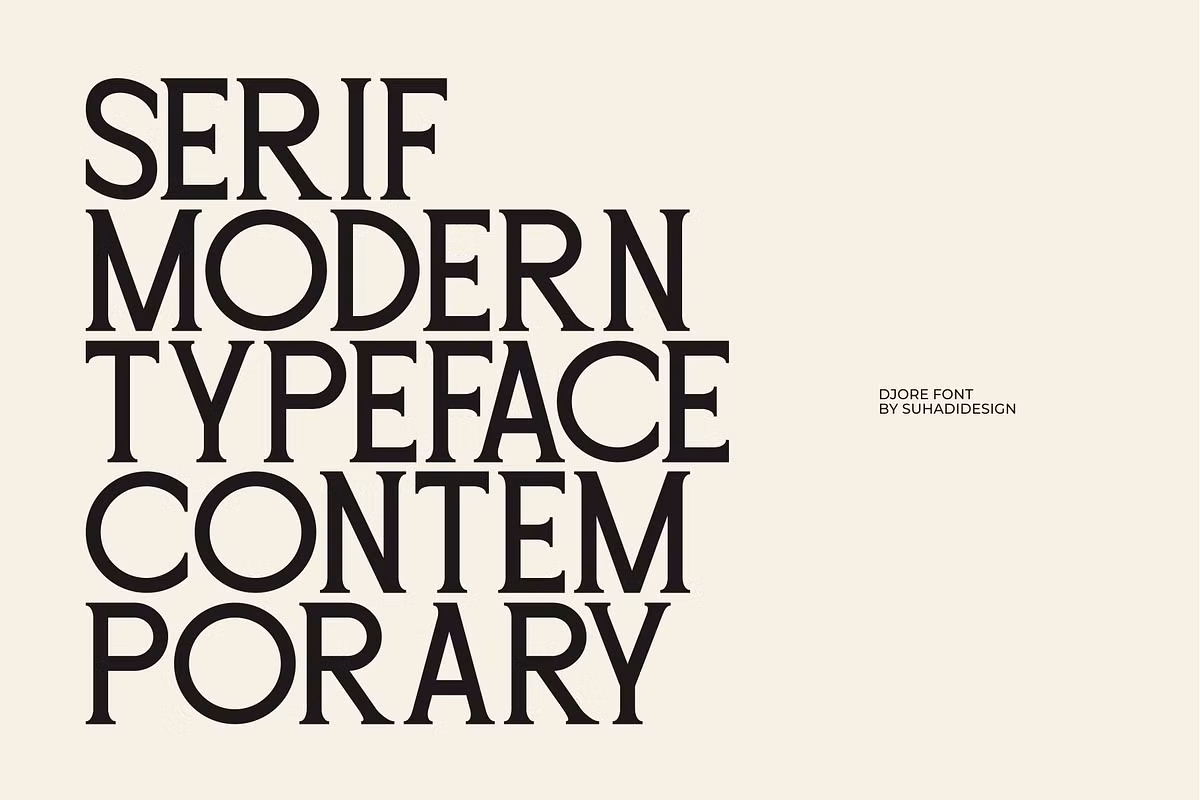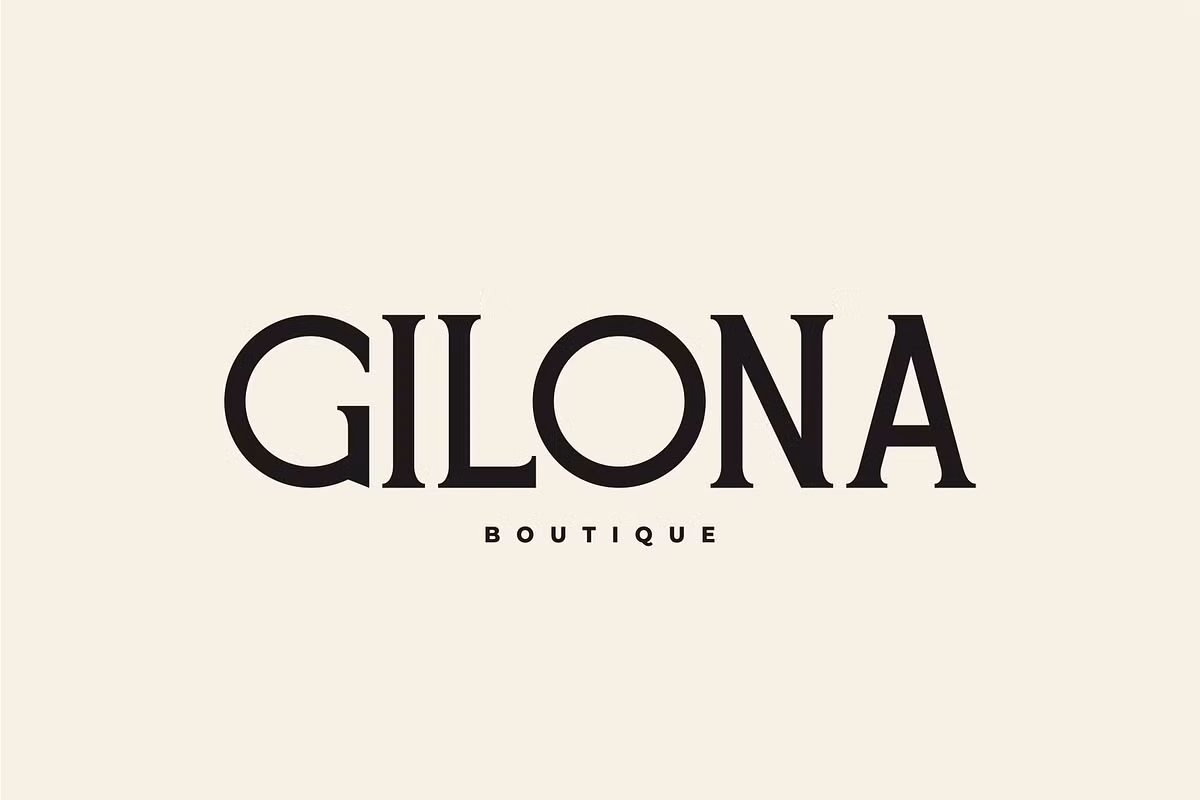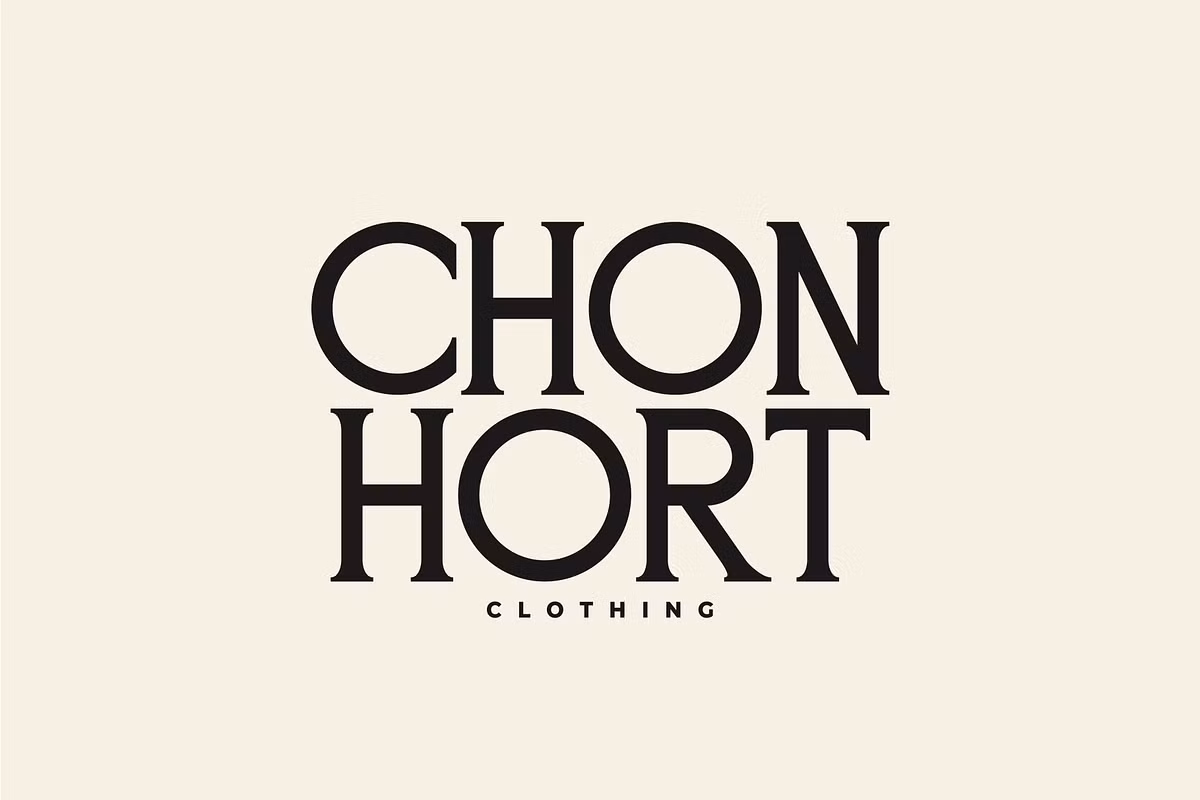
Introduction to Djore
Djore is a new typeface that’s really popular among designers right now. It’s a minimalist serif font with a modern and elegant look that stands out from the crowd. Both men and women love using it to add a touch of sophistication to their projects. The design of Djore is all about being classy and stylish, making it a great choice for lots of different design applications. With its contemporary feel, it’s perfect for anyone looking to give their work a bit of extra flair. Whether you’re working on a big project or just want to add some elegance to your everyday designs, Djore is definitely worth checking out. Its simple yet refined aesthetic makes it a great addition to any design toolkit.
Design Style of Djore
Djore embodies the principles of modern minimalism, featuring clean lines and balanced proportions that make it a versatile choice for any project. Its design gracefully combines traditional serif elements with contemporary flair, resulting in a font that is both timeless and trendy.
Elegant Serif Features
Djore has a classic feel to it, with serif details that give off a sense of sophistication. The way each character is designed is really thoughtful, making sure it’s easy to read while still looking luxurious and refined. This makes Djore perfect for things like high-end magazines, branding materials, and any design project that needs a touch of elegance. It’s all about creating a certain atmosphere, and Djore does that beautifully. Whether you’re working on a fancy brochure or a high-end website, Djore is a great choice because it adds a level of refinement that’s hard to find in other fonts.
Contemporary Aesthetic
Djore has a really modern look that’s great for branding projects. If you’re making a logo, business card, or anything else for your brand, Djore’s clean design will help you stand out. It’s simple and understated, so it won’t overwhelm other elements in your design. This means you can easily incorporate it into any layout and achieve a balanced look. Djore is all about creating a strong visual identity without being too flashy, making it perfect for modern brands that want to look sleek and professional.
Character Sets and Versatility
Djore is designed with a comprehensive character set that includes capital letters, lowercase letters, numbers, and punctuation. This extensive range allows you to use Djore across various applications without compromising on style or clarity.
Use Cases for Djore
Djore is suitable for a wide array of design projects, including:
- Magazines: Djore brings an elegant touch to editorial layouts, making it perfect for high-fashion magazines or lifestyle publications.
- Branding: Whether for a logo or business card, Djore’s sophisticated design can elevate a brand’s image and make it memorable.
- Social Media: Use Djore to create stunning graphics for social media posts that stand out and engage your audience.
- Publications: Djore is an excellent choice for books and articles, ensuring that the text is not only readable but also aesthetically pleasing.
When you want to get the most out of your designs, think about combining Djore with other fonts that make it look even more sophisticated, but also provide a nice contrast. Here are some ideas for font pairings that you might find useful.
- Sans-Serif Fonts: Pair Djore with a clean sans-serif font like Montserrat or Open Sans to create a modern look that balances elegance with readability.
- Script Fonts: To give your designs a more luxurious feel, try pairing Djore with a fancy script font like Great Vibes or Pacifico.
- Geometric Fonts: Geometric sans-serif fonts such as Futura or Avenir can provide a striking contrast to Djore’s organic curves.
Djore is flexible and can be used in lots of different ways, like for printing or digital stuff, and it works perfectly in all these different formats.
Djore is a great choice for designers who want to add a touch of elegance to their work. This modern minimal serif typeface has a lot to offer, with a comprehensive character set that makes it perfect for a wide range of design projects. From magazines and branding materials to social media graphics, Djore can help you create something truly special. Its versatile style means it can be used in many different ways, and its contemporary feel will give your designs a fresh and sophisticated look. So why not give Djore a try and see how it can elevate your designs? With its classic style and modern twist, it’s sure to make your work stand out from the crowd.